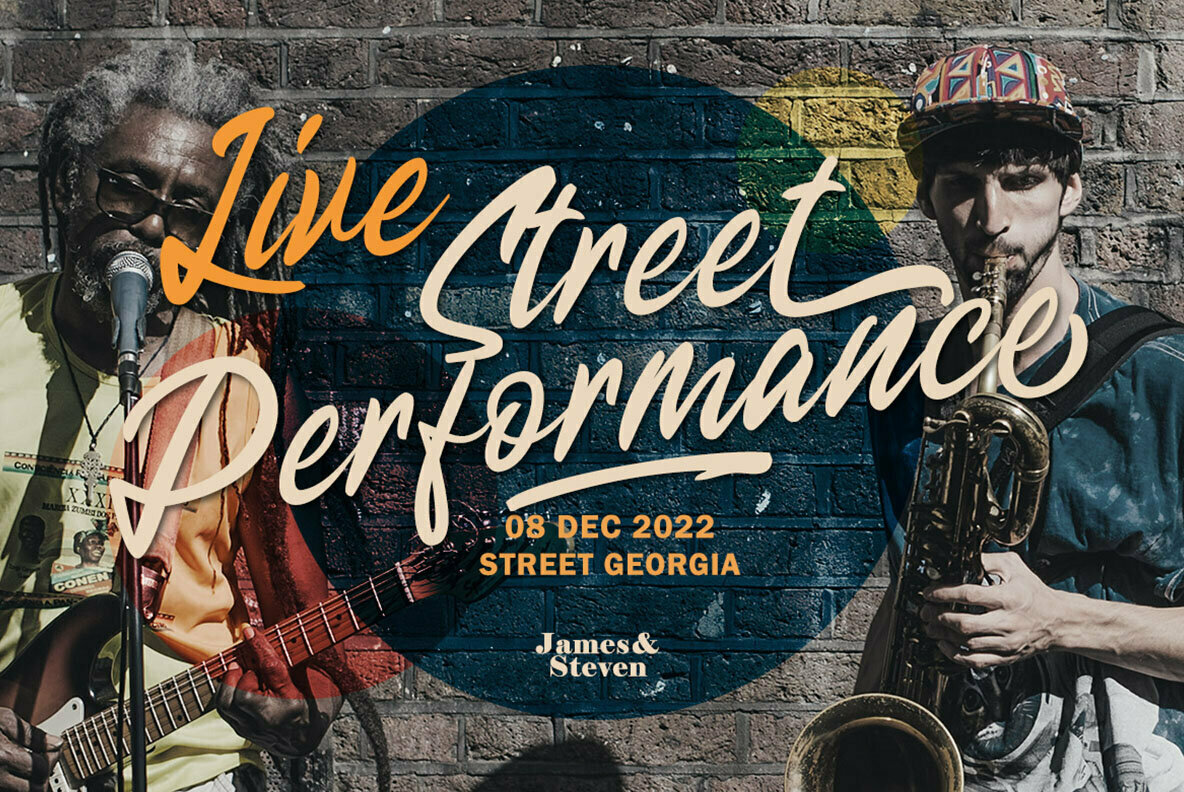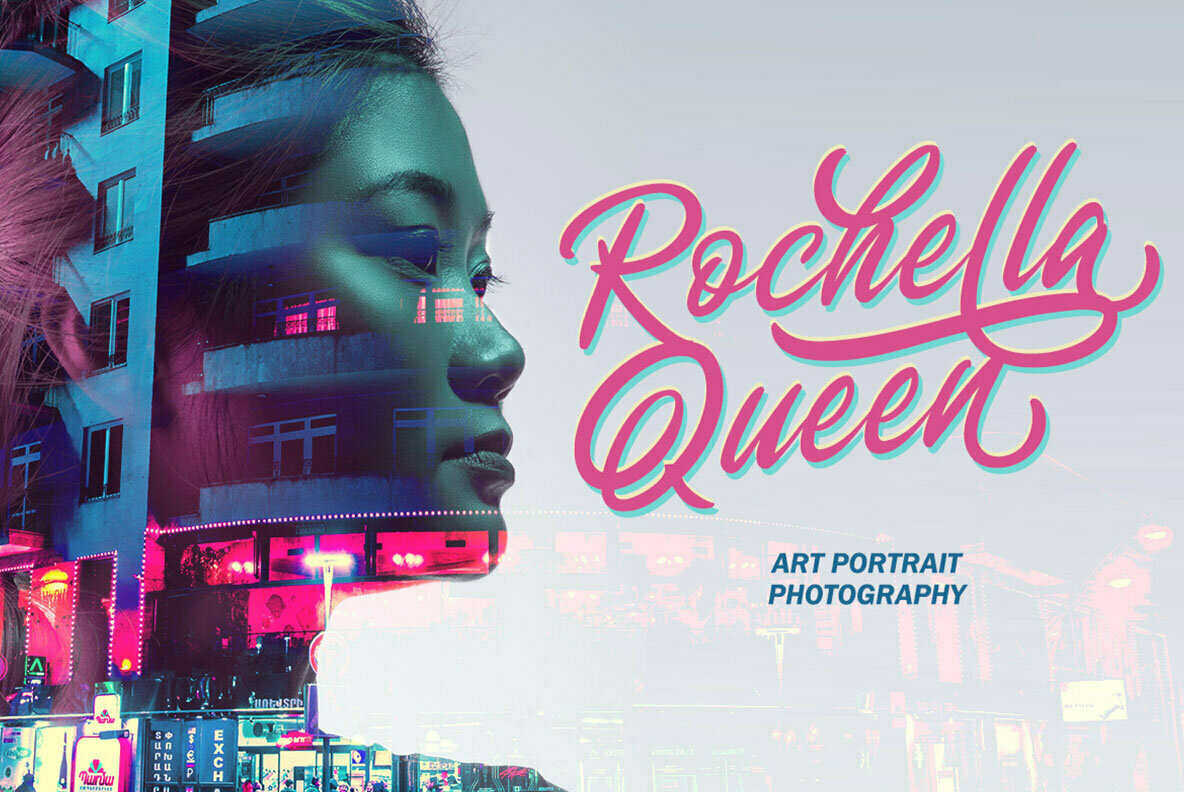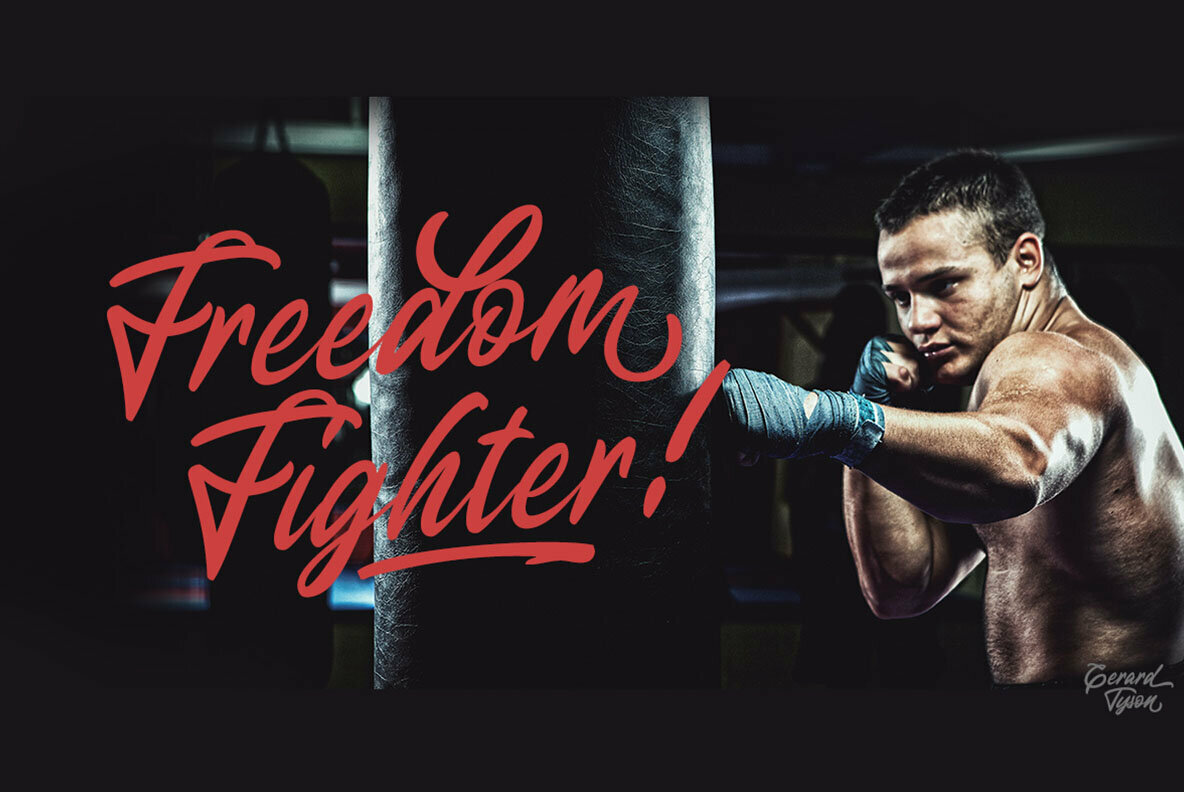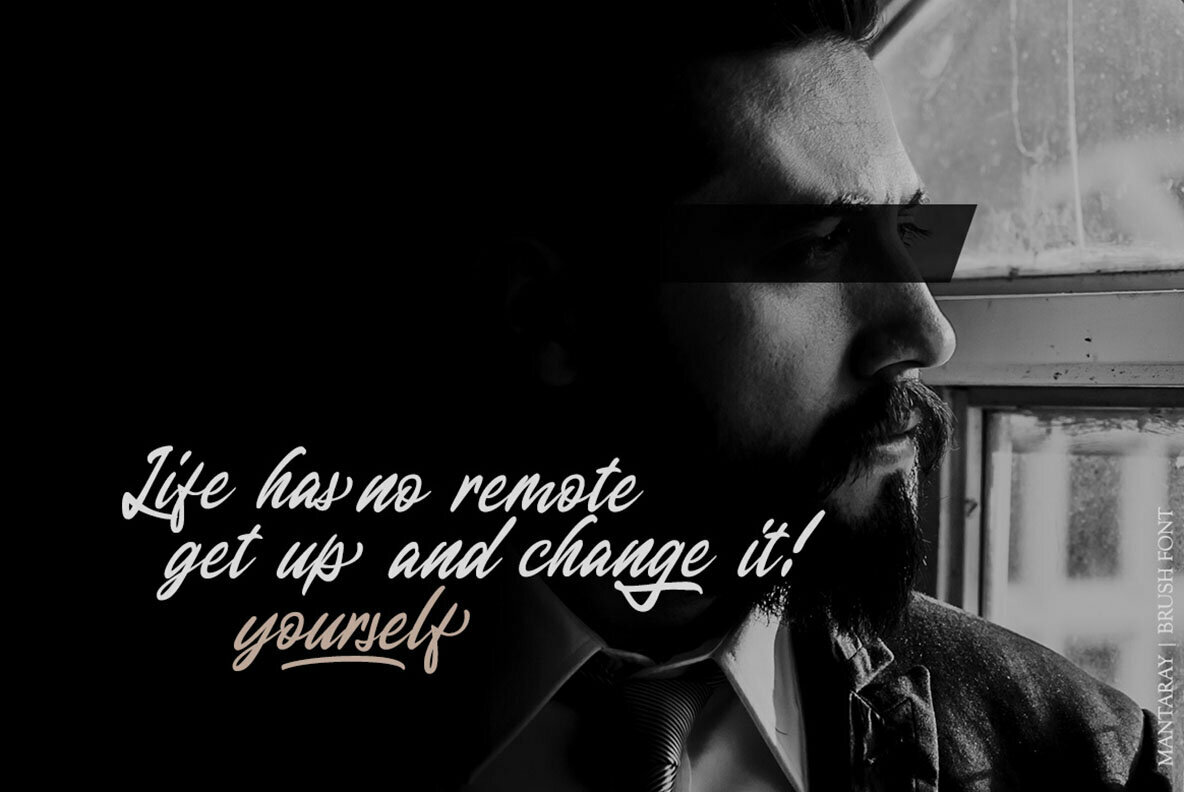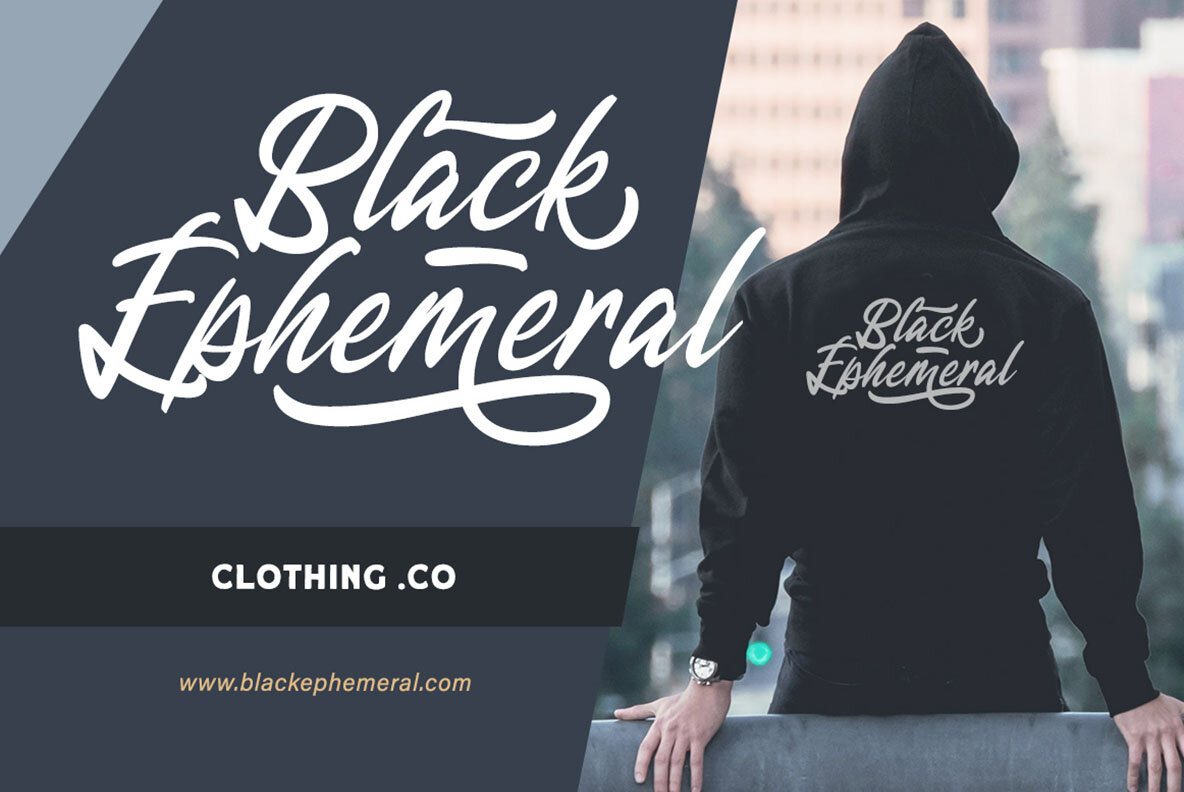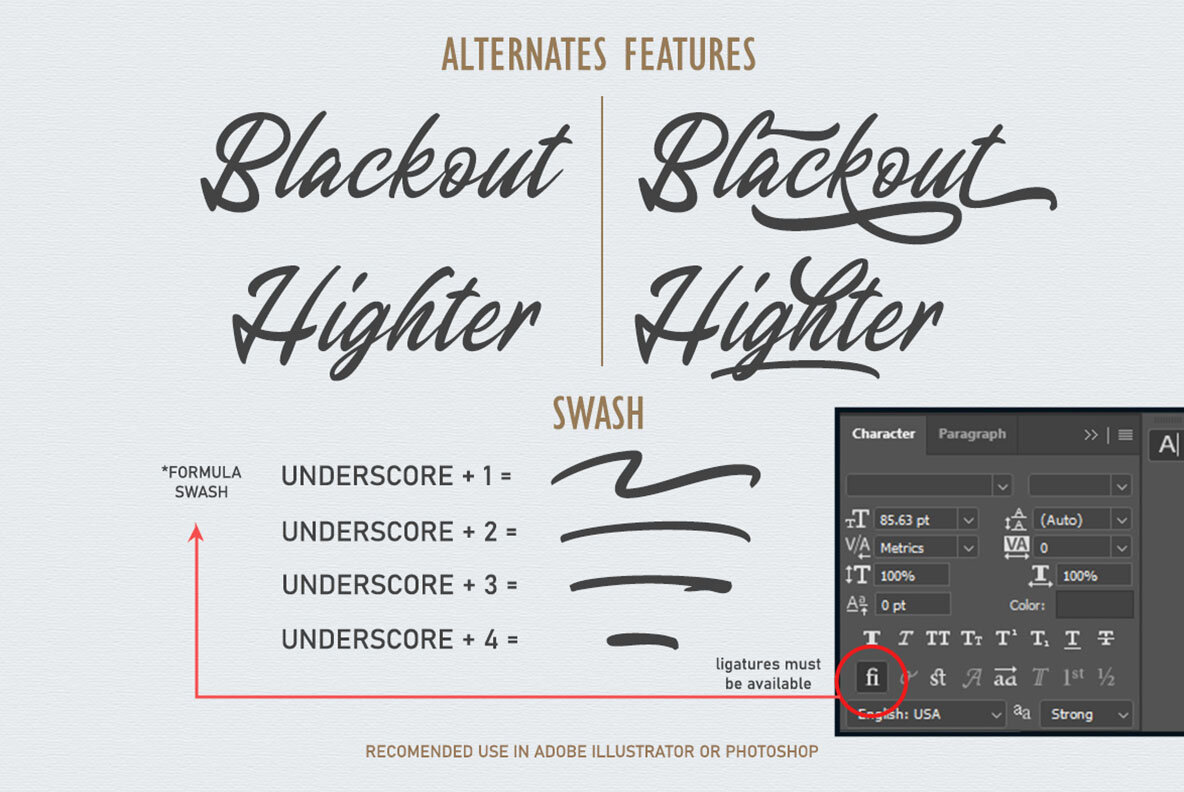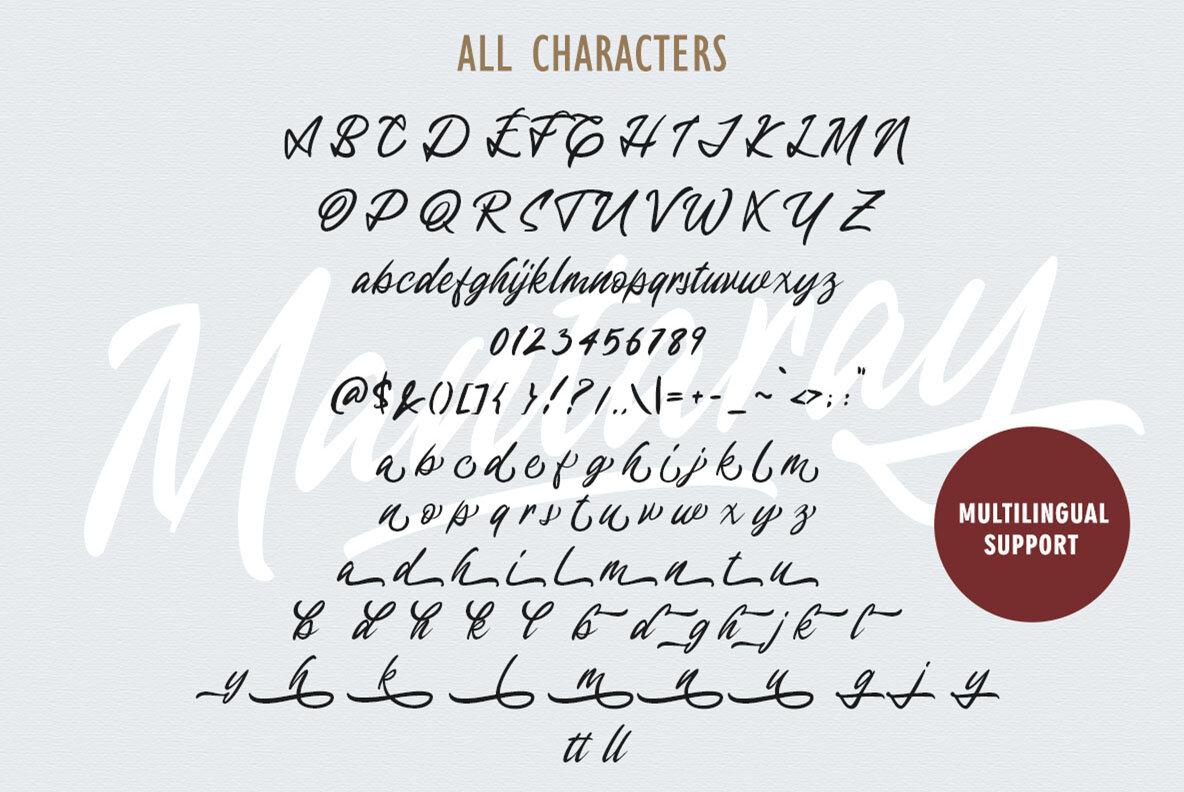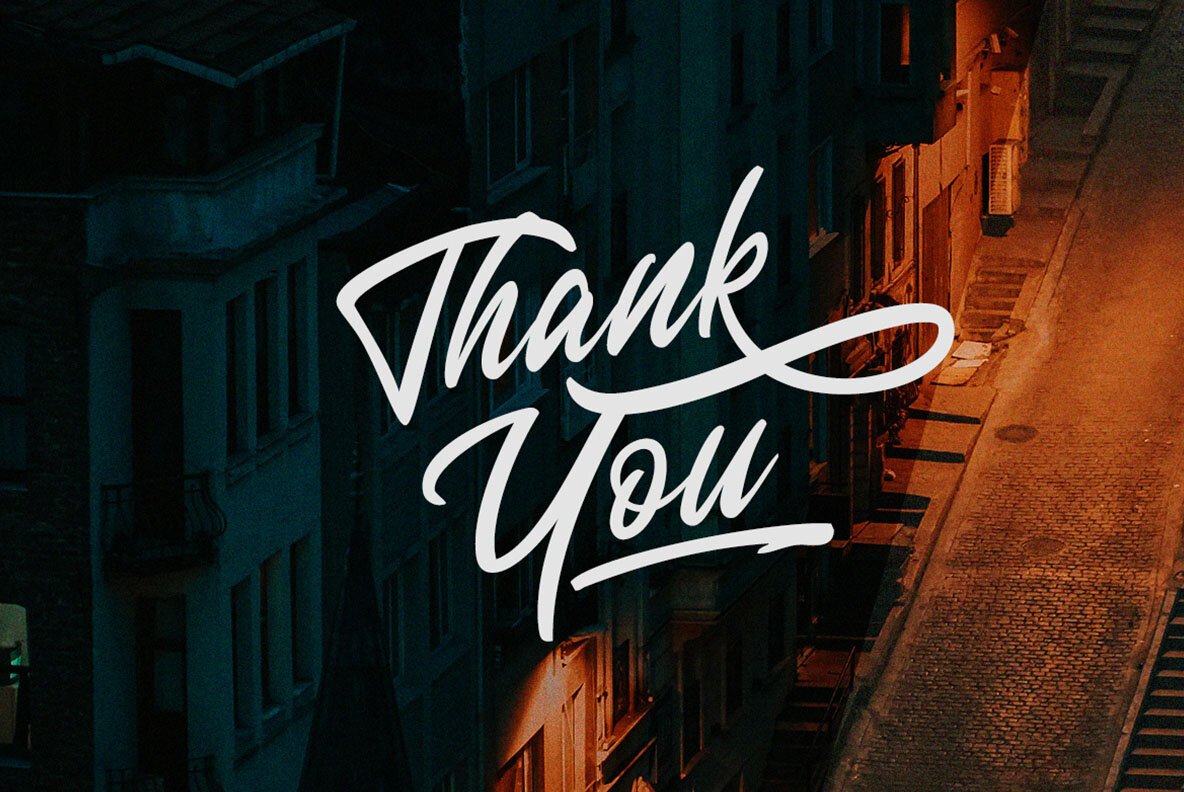
Mantaray Font
Mantaray Regular
Mantaray captures the fluidity and dynamic flair typical of brush script fonts, making it an excellent choice for headlines, display work, and logotypes. Crafted with versatility in mind, this font is well-suited for use in logos, formal invitations, and advertising. Its adaptability extends to diverse applications such as magazines, books, packaging, and more. Programs such as Adobe applications or Corel Draw are recommended to fully utilize Mantaray's OpenType features and view its extensive Glyphs panel.Mantaray: Expressive Brush Script for Striking Designs